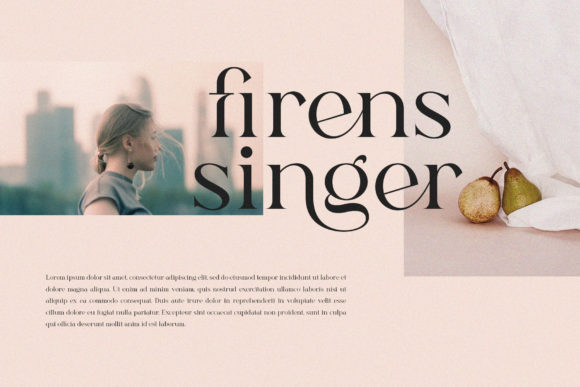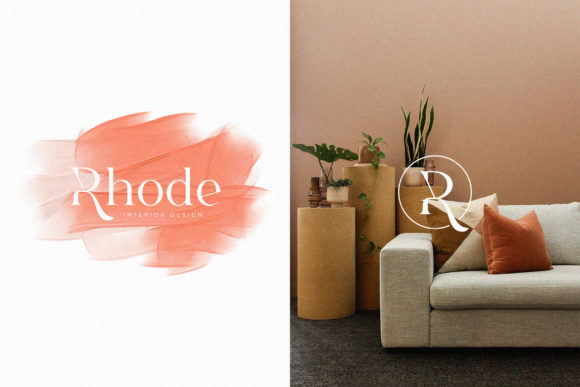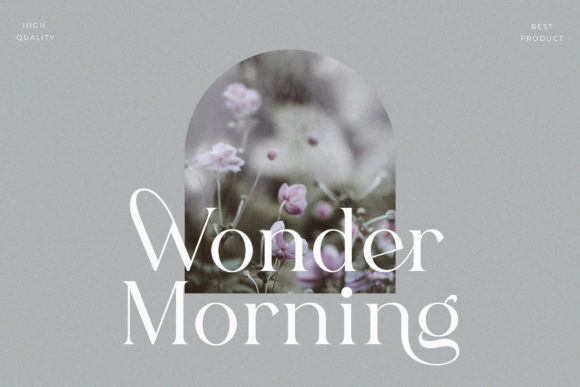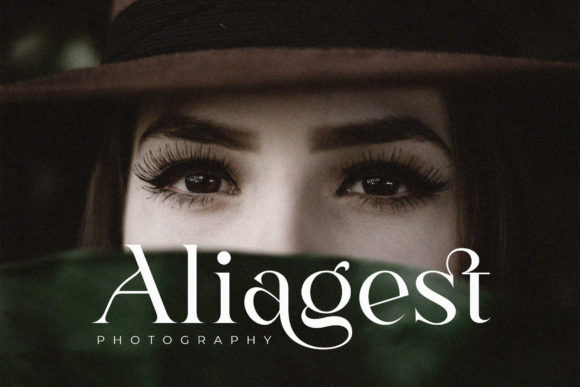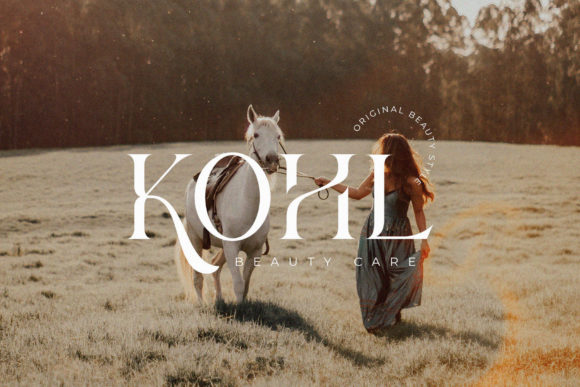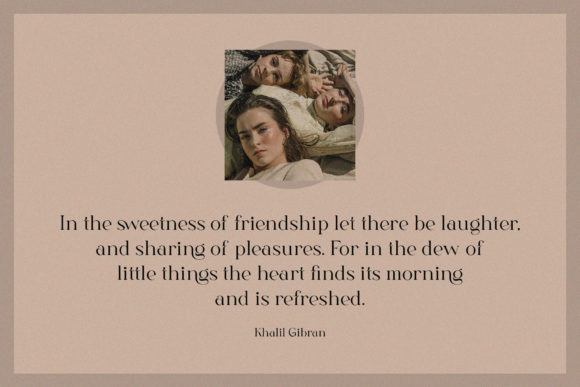
The Fligen Font: Elevate Your Designs with Elegance
I’ll never forget the time I was working on a wedding invitation project, and my client asked for a font that exuded elegance and sophistication. I scoured the internet, tried out countless fonts, but nothing seemed quite right. That was until I stumbled upon Fligen Font. ✨
Fligen is an elegant and authentic serif font that instantly captured my attention. Its ravishing style and classic charm make it perfect for creating gorgeous wedding invitations, beautiful stationery art, eye-catching social media posts, and much more!
An Honest Review of Fligen Font
- ✨ Elegant and authentic serif design
- 💕 Beautifully crafted to evoke a sense of luxury and sophistication
- 🎨 Versatile and suitable for various design projects
While Fligen Font is an excellent choice, there are a few minor quirks to be aware of: 🤔
- ⚠️ Some users may find the font’s elegance a bit too ornate for certain projects
- ⚠️ Limited availability of certain OpenType features in certain software
A Practical Guide to Using Fligen Font
- Experiment with OpenType features, such as ligatures and stylistic alternates, to add visual interest to your design
The Story Behind Fligen Font
Fligen Font was designed with the intention of creating a beautiful and elegant serif font that would evoke a sense of luxury and sophistication. The designer, inspired by classic typography and calligraphy, crafted Fligen to be a versatile and highly legible font suitable for a wide range of design projects.
Q: What is Fligen Font best suited for?
A: Fligen Font is perfect for creating elegant and sophisticated designs, such as wedding invitations, stationery art, social media posts, and more.
Q: Is Fligen Font available in multiple languages?
A: Yes, Fligen Font supports multiple languages, including Western European languages.
Q: Can I use Fligen Font in both print and digital designs?
A: Absolutely! Fligen Font is highly legible and versatile, making it suitable for both print and digital designs.